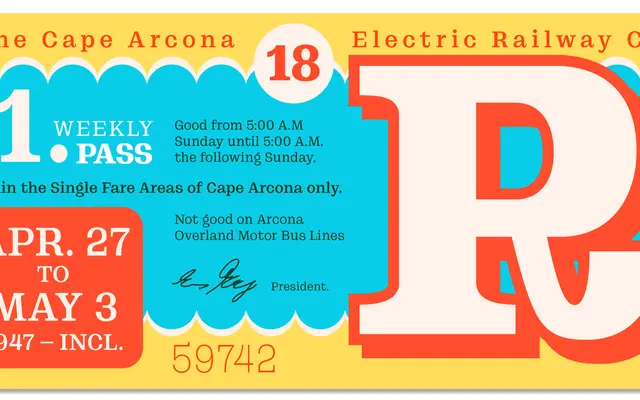
CA Spotnik Serif
A contemporary serif by Stefan Claudius that draws on Scotch Roman traditions while deliberately avoiding conventional vertical serifs for a cleaner, narrower form.
Ten styles span Thin to Extrabold with matching italics, plus a variable font, making it adaptable for both body text and larger display use. The narrower proportions give it an economy well suited to extended reading, and the elegant italic retains the classic Scotch Serif flavour the designer cites as an influence. Extensive OpenType support includes stylistic alternates, fractions, old-style figures, superiors and inferiors, and multiple numeral sets.
The foundry classifies it as serif; influences from Scotch Roman and Scotch Serif traditions are evident, particularly in the italic, though the absence of traditional vertical serifs gives it a distinctly contemporary character.